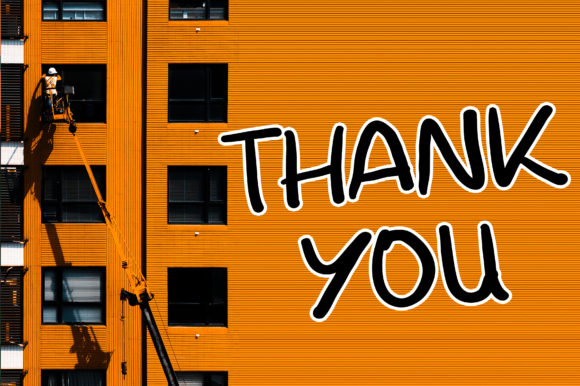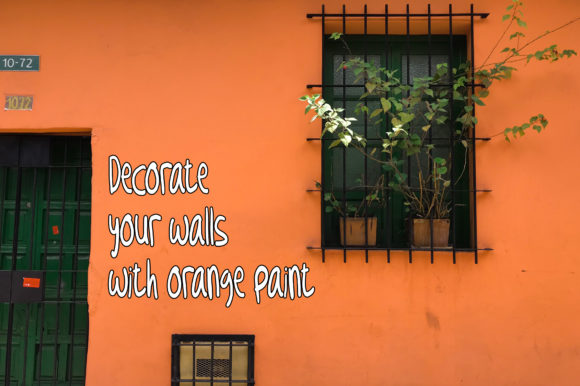
Orange Font
About Orange Font
Orange is a fresh and beautiful handwritten font with uneven lines and rounded edges. This authentic font will make your design stand out!